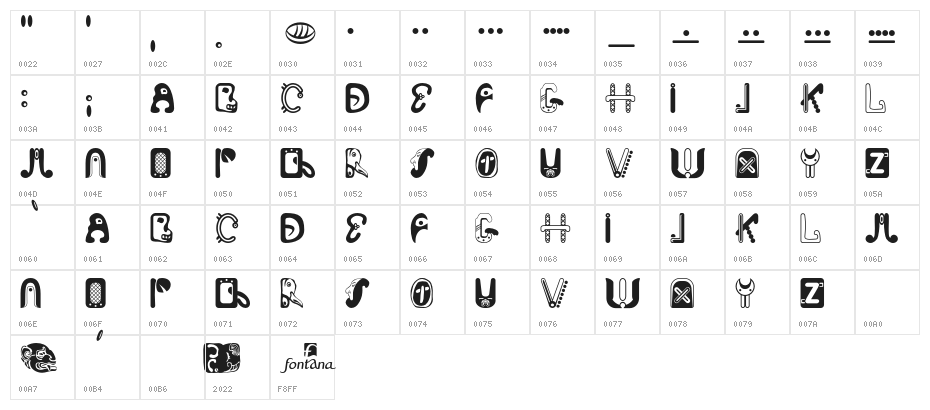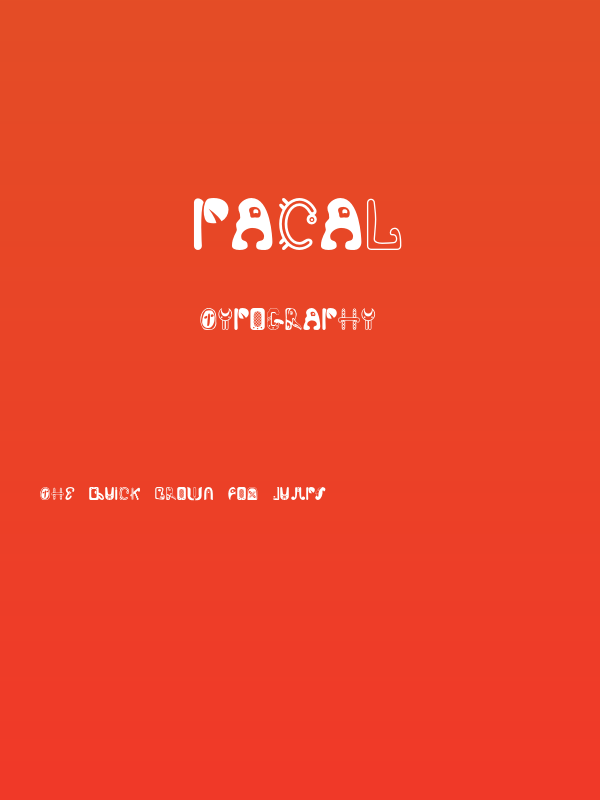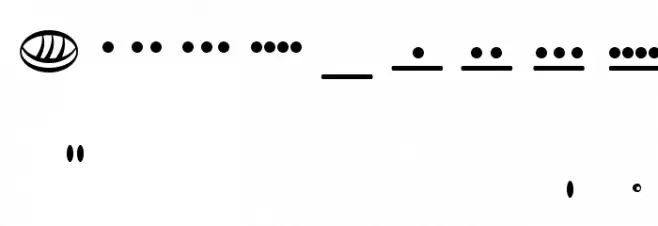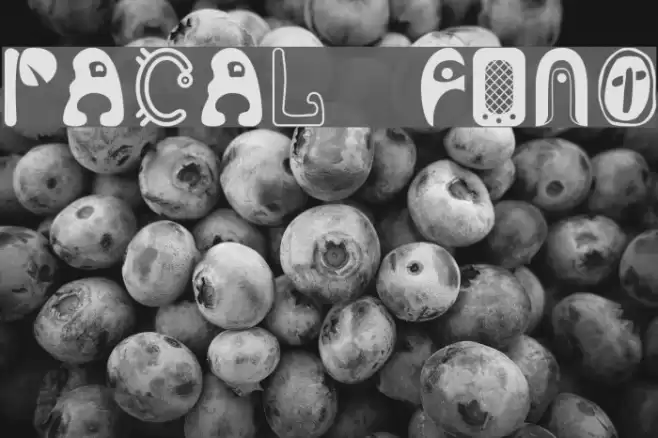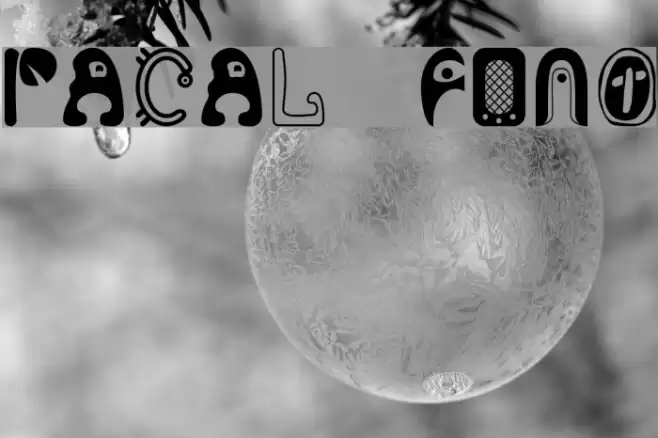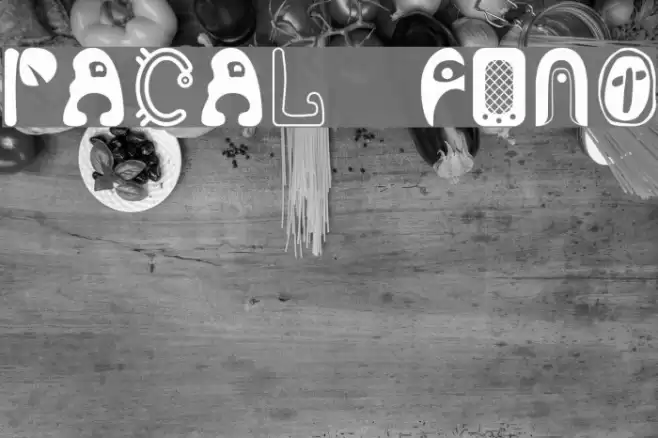
Pacal Font
Pacal Description
This font is a playful and highly decorative typeface, featuring unique and whimsical designs for each character. Each letter is crafted with intricate details, incorporating elements like tools, animals, and abstract shapes, making it visually engaging and full of personality. The font has a bold presence with a mix of solid and outlined forms, adding depth and variety. It is perfect for creative projects that require a fun and artistic touch, such as children's books, posters, or themed event invitations. The font's distinctive style makes it stand out, ensuring that any text using it will capture attention.
| Proposed Projects | Ideal for children's books, creative posters, themed event invitations, and artistic branding. |